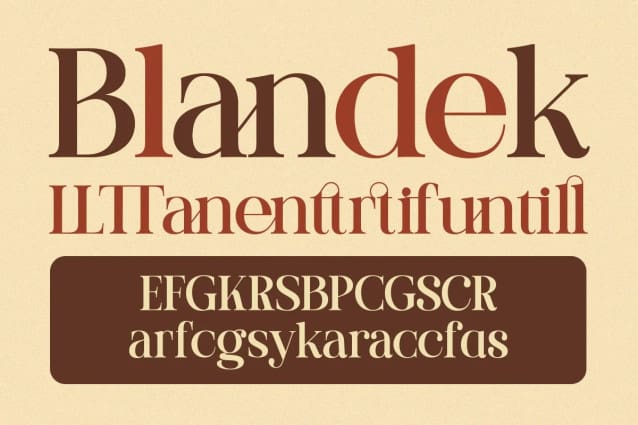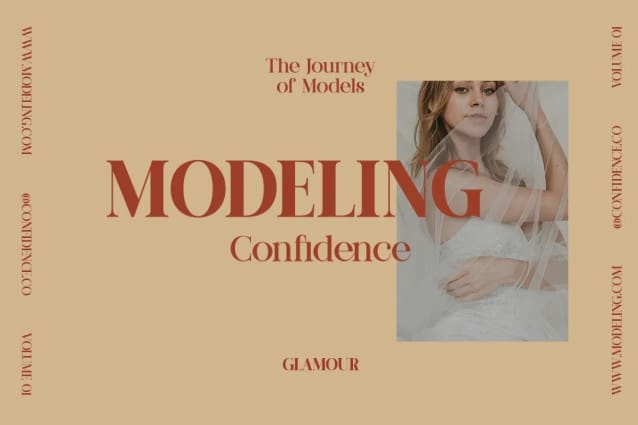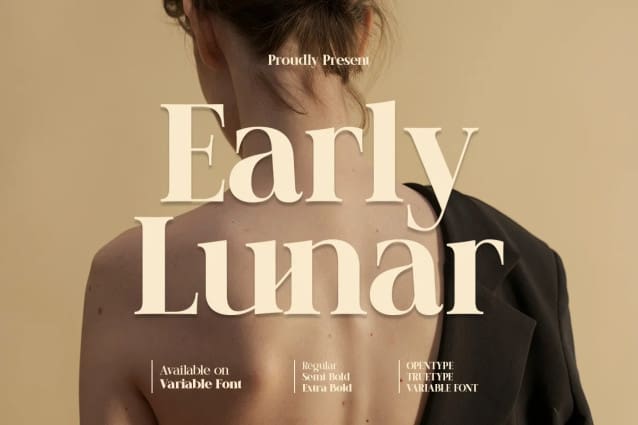
Early Lunar Font
Early Lunar Font – elegant serif font can serve as a powerful attraction for customers. Its simple yet refined design imparts a professional and understated impression. The font is easy to read while maintaining a touch of sophistication, making it a versatile choice for various marketing purposes.
Whether used in headings, subheadings, or main text, the uniqueness of this font lies in its ability to convey a sense of class and reliability. The smooth and balanced letter strokes create a visually pleasing appearance, enhancing the overall appeal of the brand. This font is a simple yet effective design element that can leave a positive impression on customers and reinforce the brand identity effectively.